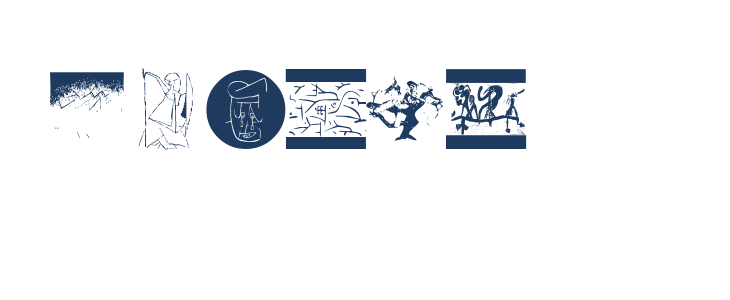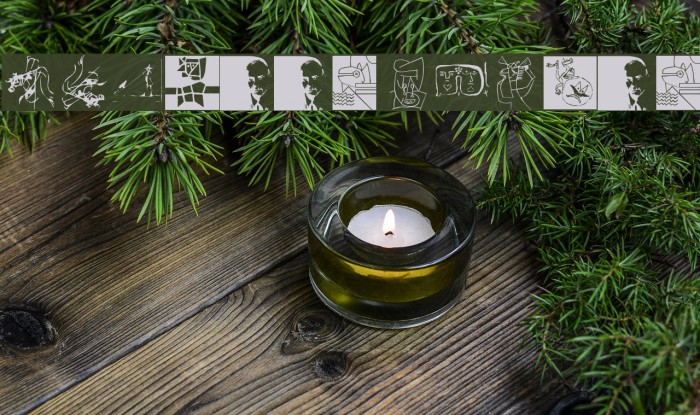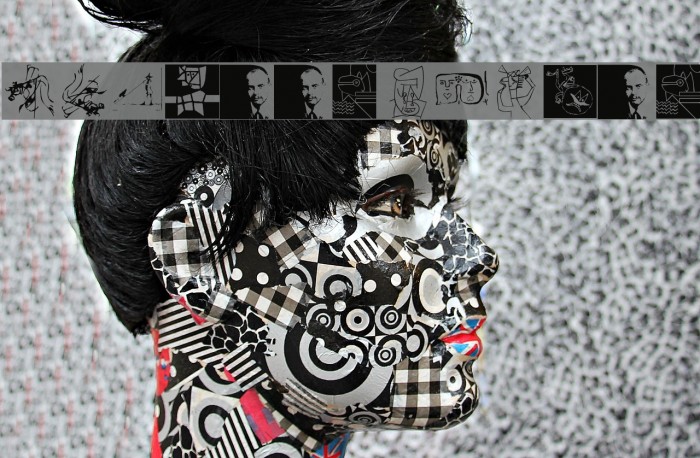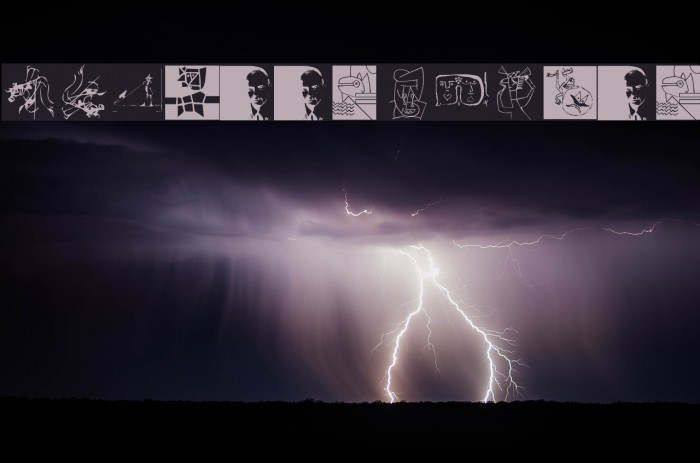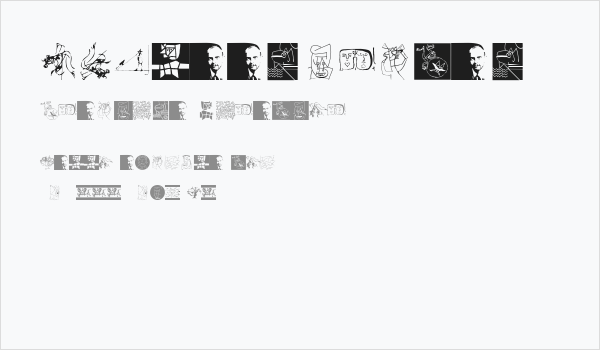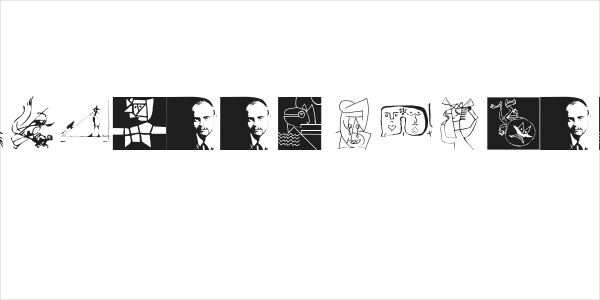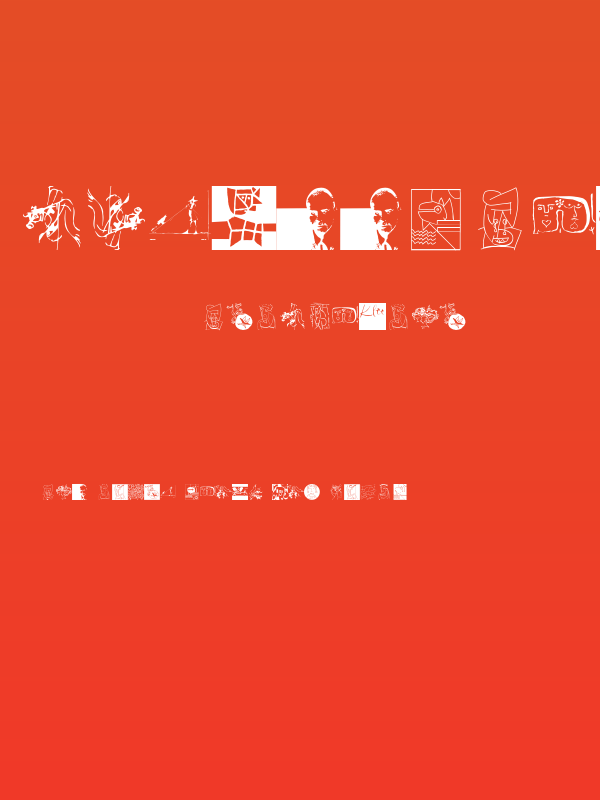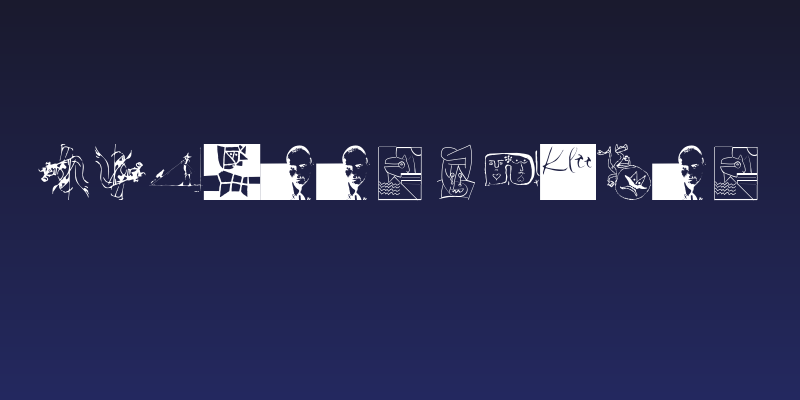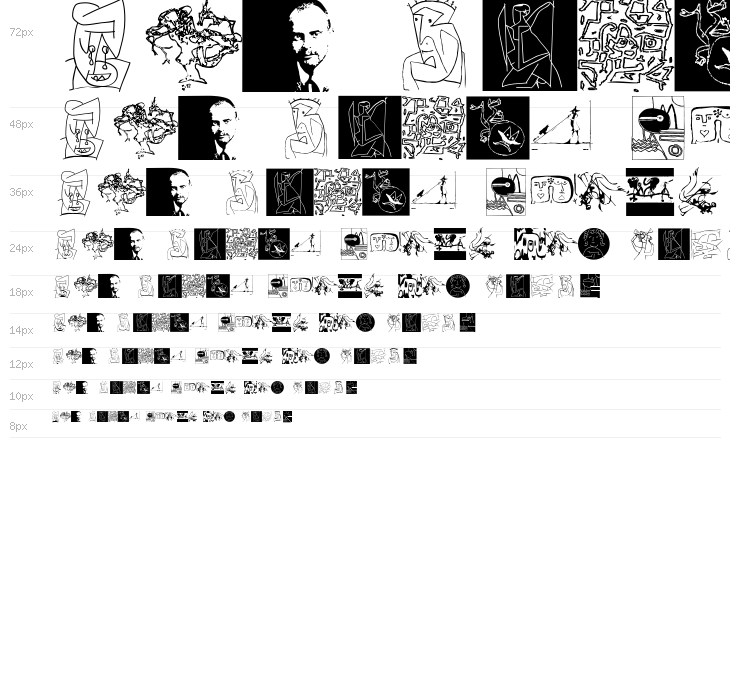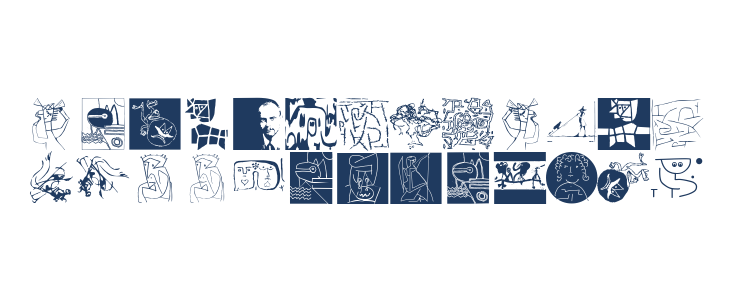
OnKleesTraces Font
OnKleesTraces Description
This font consists of highly decorative, abstract, and artistic glyphs inspired by line art and cubist illustrations, with each character resembling a unique piece of artwork or sketch. The forms are irregular, with a mix of filled and outlined shapes, and some characters are enclosed in geometric backgrounds or circles. The style is expressive and visually complex, prioritizing artistic impression over legibility.
| Overall Style | Decorative, Artistic, Abstract, Modernist |
| Use Case | Logos, Posters, Artistic headlines, Decorative elements |
| Proposed Projects | Art posters, album covers, creative branding, gallery invitations, experimental design projects. |